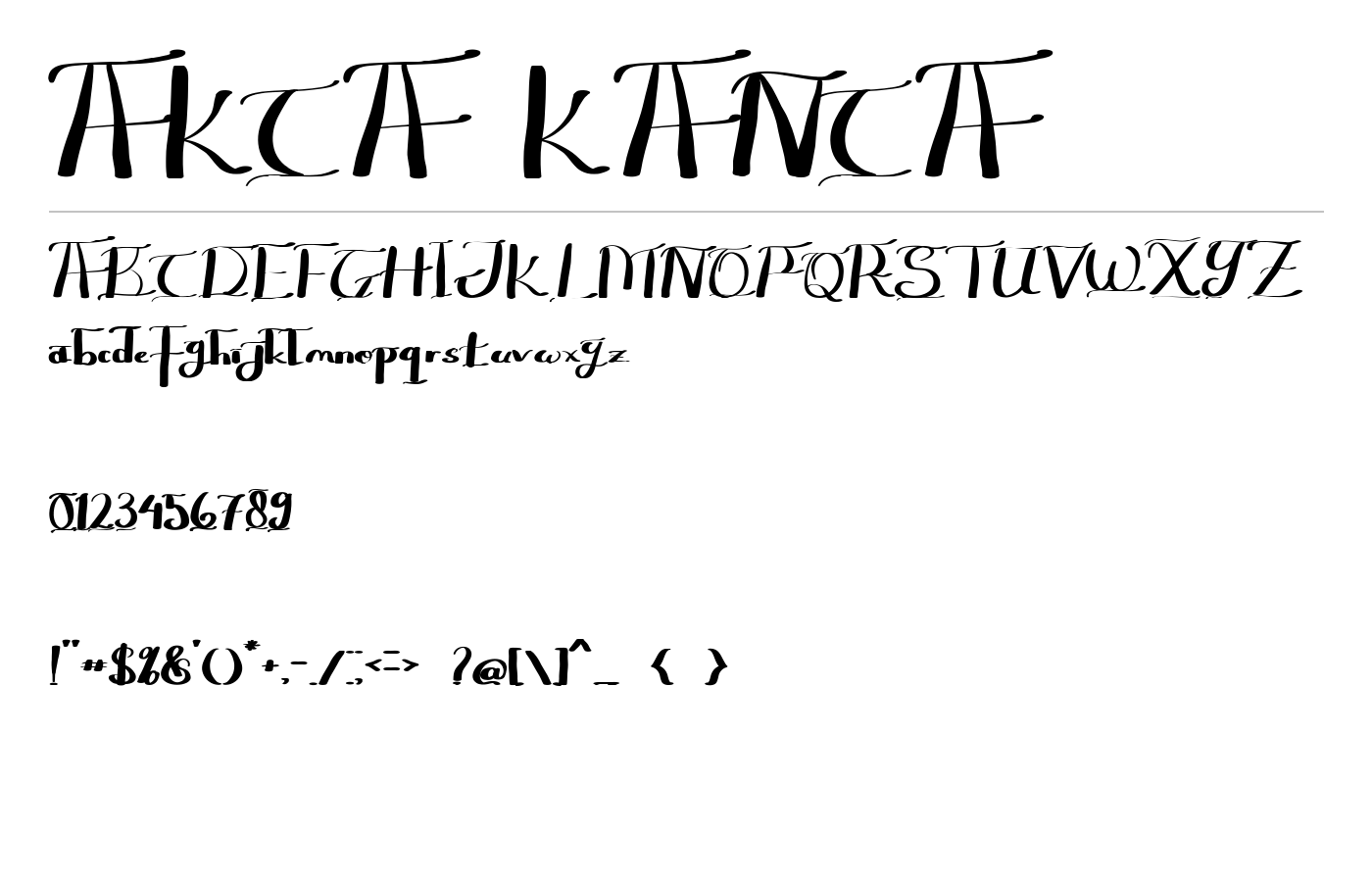
AKCA KANCA is an elegant, hand-drawn script font with a playful yet sophisticated character. Its slender, slightly condensed letterforms feature delicate curves and subtle flourishes, making it ideal for creative branding, invitations, and artistic projects that benefit from a personal and expressive touch. This font works beautifully in display settings where its unique charm can shine.
AKCA KANCA Font
About AKCA KANCA Font